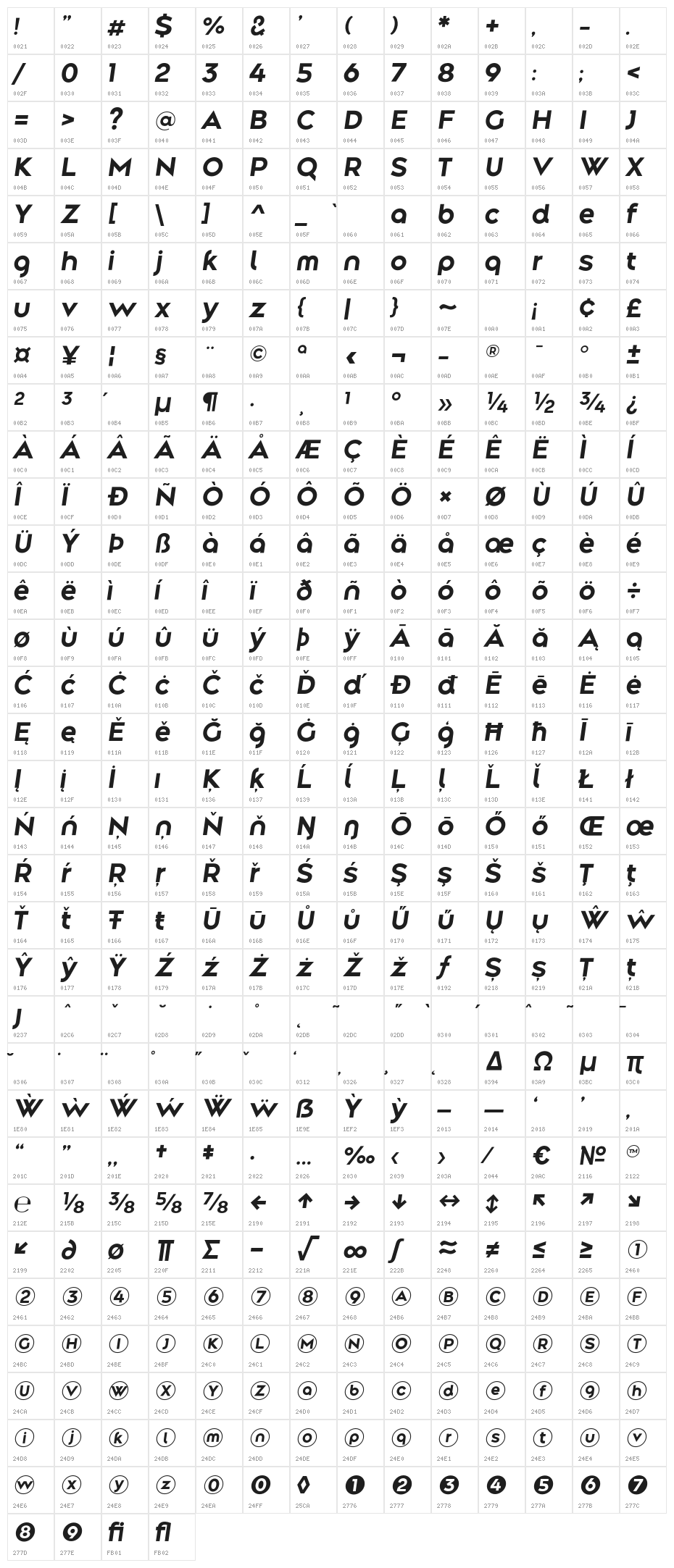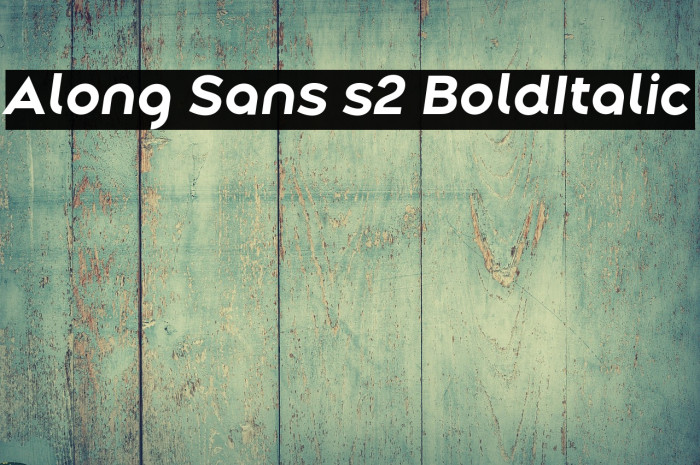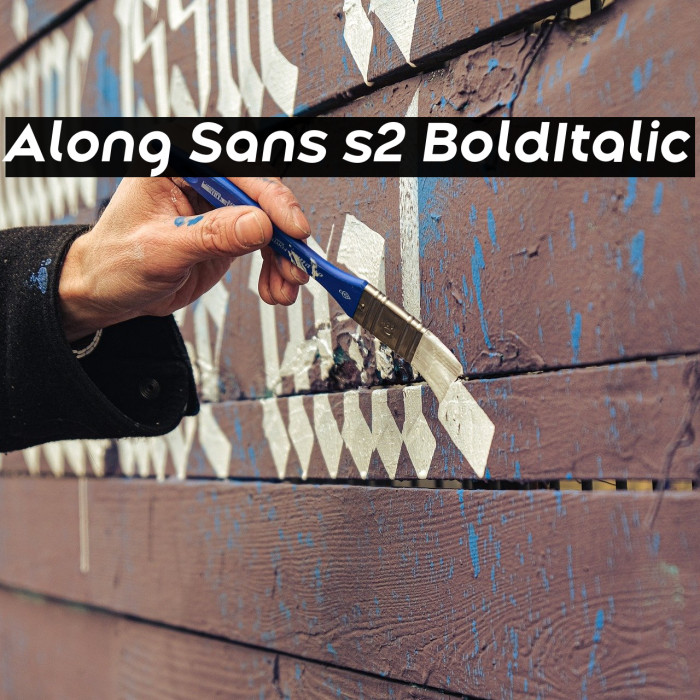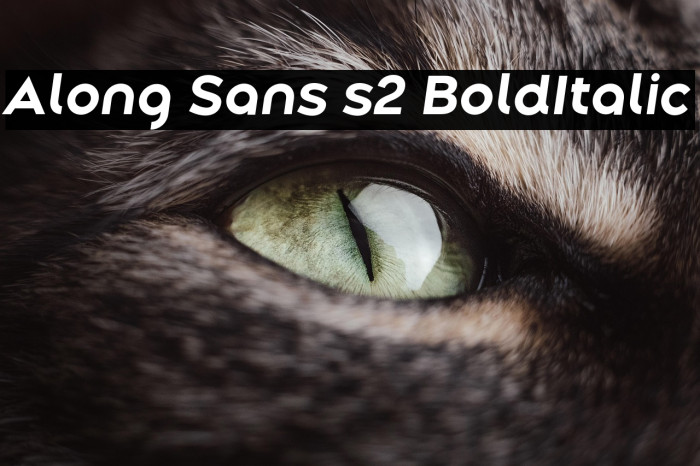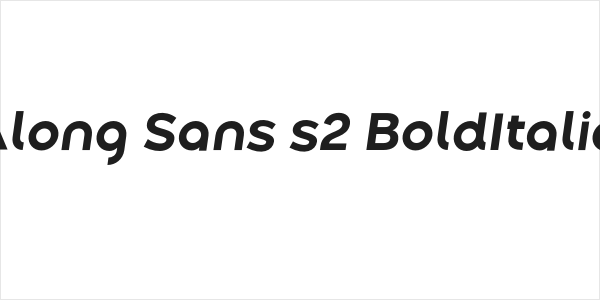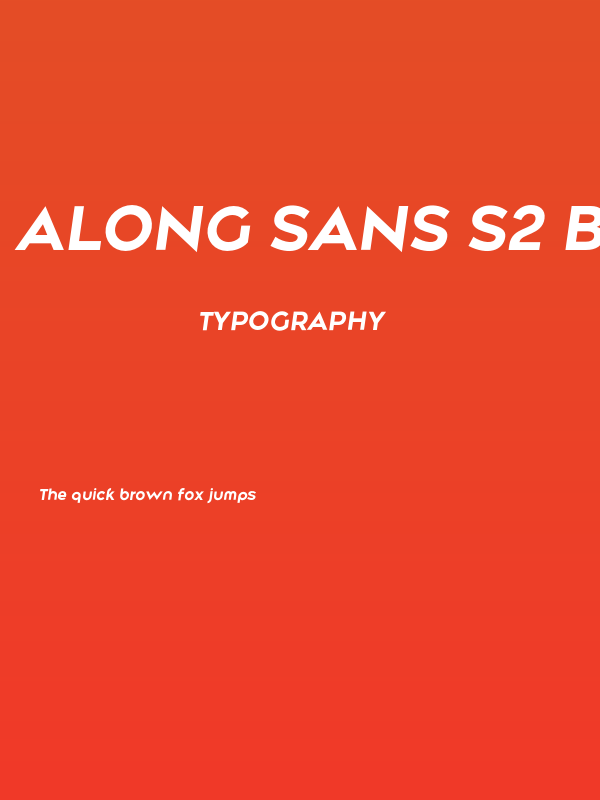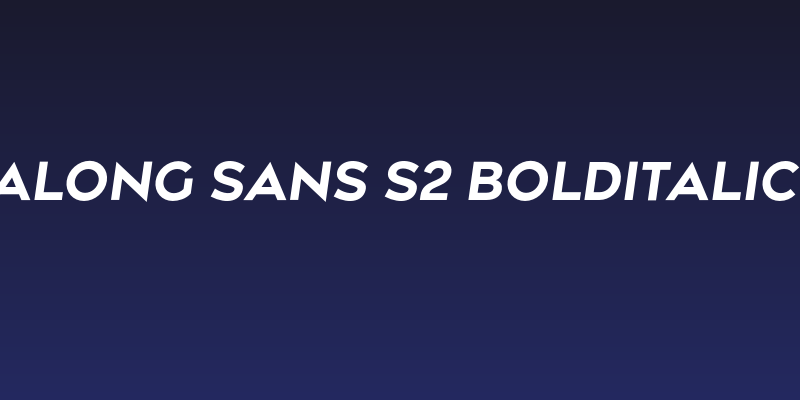
Along Sans s2 BoldItalic Font
Along Sans s2 BoldItalic Description
This font features a bold and italicized style with a modern sans-serif design. The characters are clean and geometric, with a slight slant that adds a dynamic and forward-moving feel. The uppercase letters are strong and assertive, while the lowercase letters maintain a consistent flow, enhancing readability. Numbers are clear and distinct, making them suitable for various applications. The special characters are well-integrated, maintaining the overall aesthetic of the font. This font is versatile and can be used in both digital and print media, offering a contemporary look that is both professional and approachable.